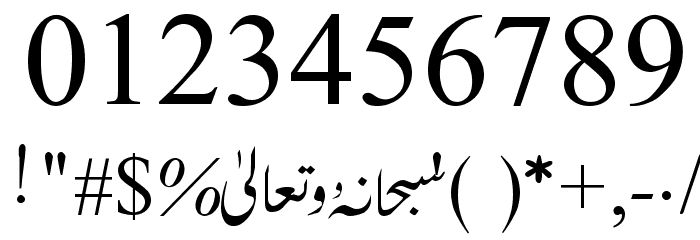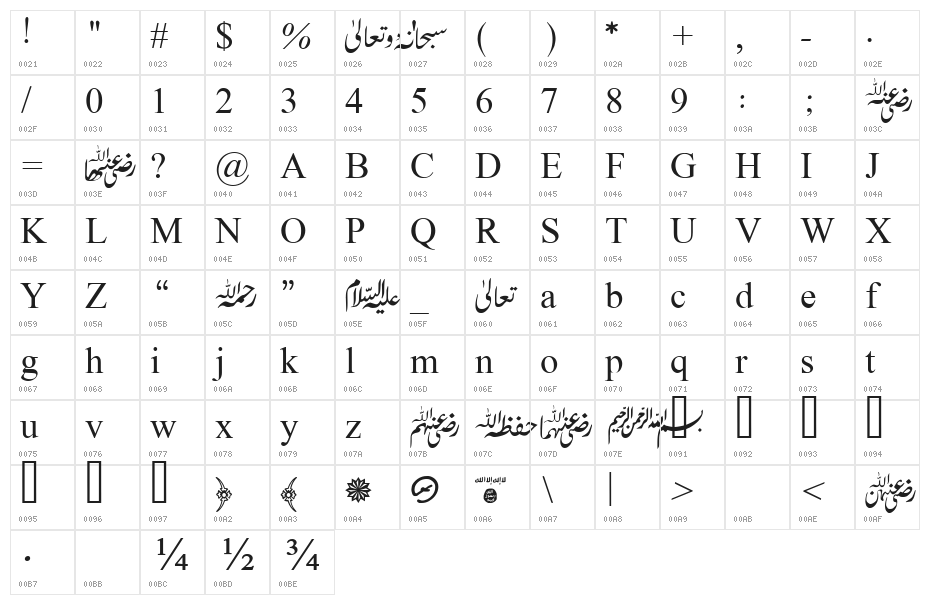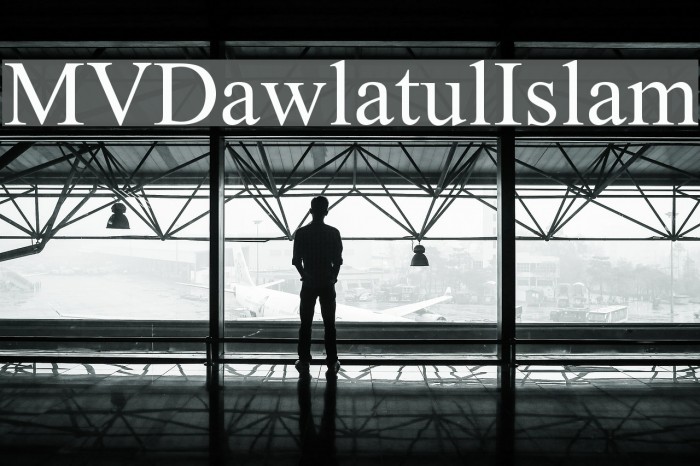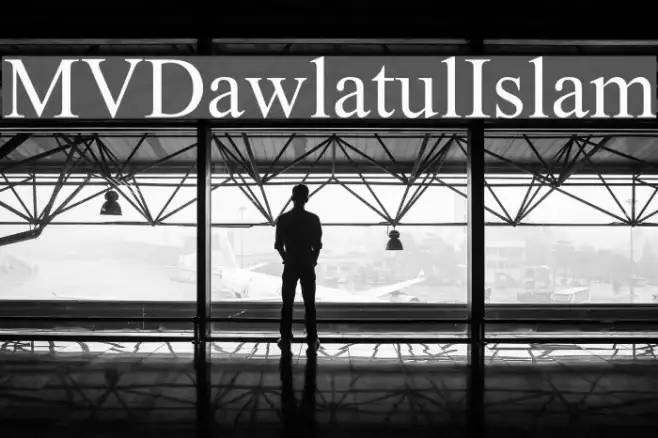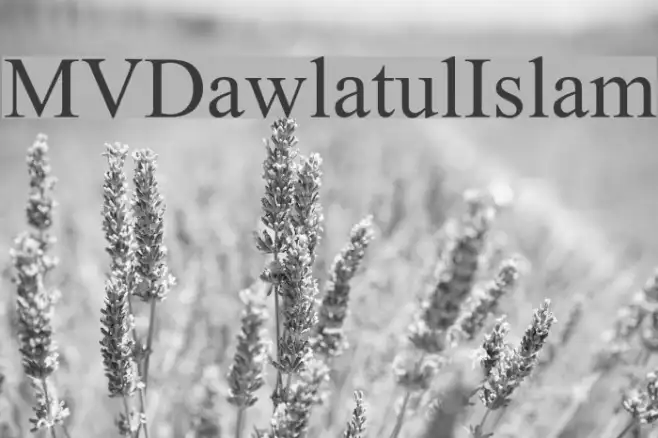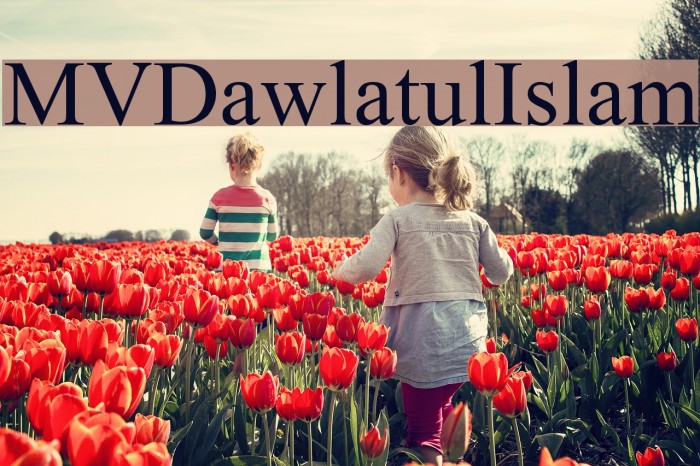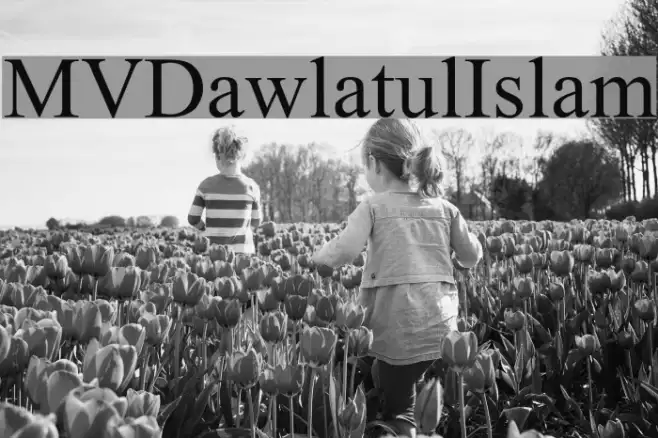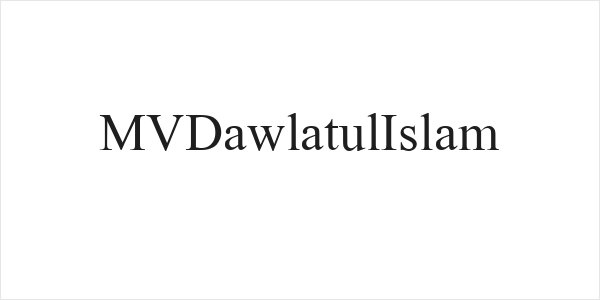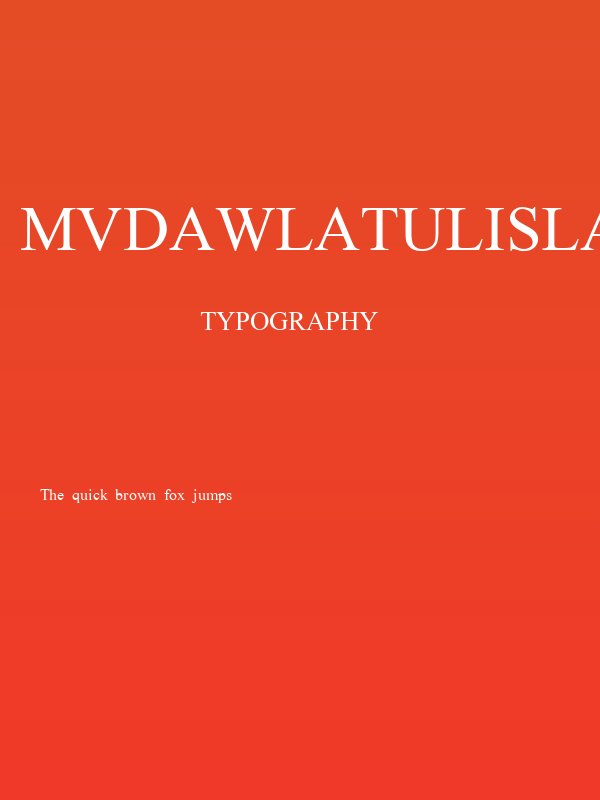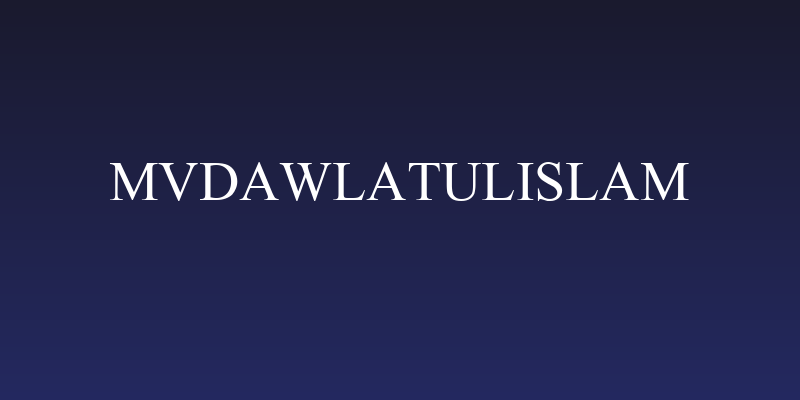
MVDawlatulIslam Font
MVDawlatulIslam Description
This font exhibits a classic serif style with elegant and refined strokes. The uppercase letters are bold and commanding, while the lowercase letters maintain a graceful and sophisticated appearance. The numerals are clear and well-defined, complementing the overall aesthetic. Special characters are included, adding versatility to the font's usage. The design is reminiscent of traditional serif fonts, offering a timeless and professional look suitable for various applications.
| Use Case | Headlines, Body text, Editorial design |
| Proposed Projects | Ideal for formal documents, book typesetting, branding, and editorial design. |